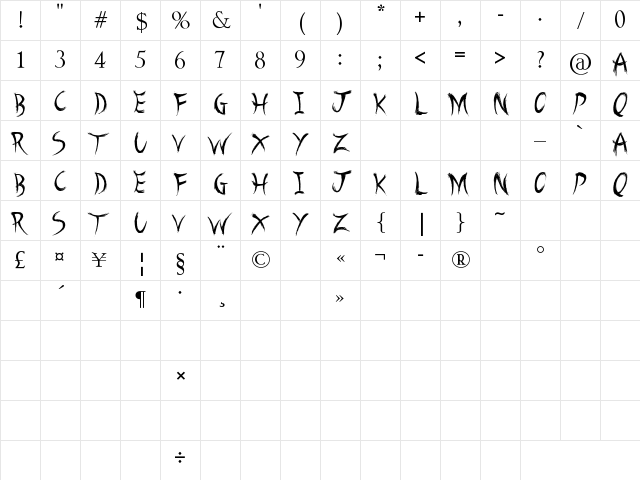
A Brush No Regular
Design Context for A Brush No
A Brush No flows with the natural rhythm of handwritten lettering, making it ideal for designs that call for warmth and personal expression.
Font Pairing: Combine A Brush No with a simple geometric sans for maximum contrast - the tension between flowing curves and clean structure is a classic typographic pairing.
Pro Tip: Use A Brush No for short runs of text - names, titles, or taglines. Extended body copy in script faces tires the eye quickly.